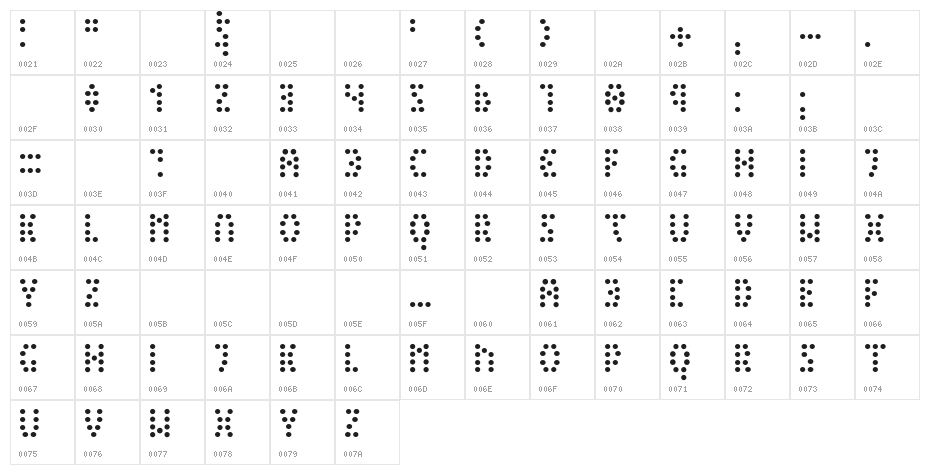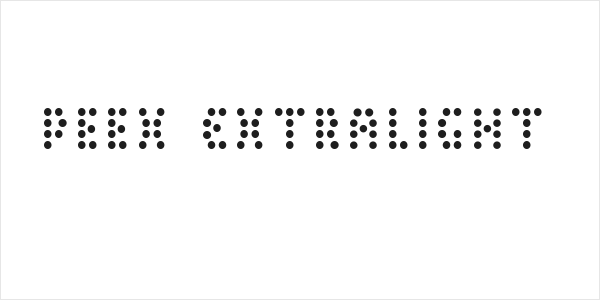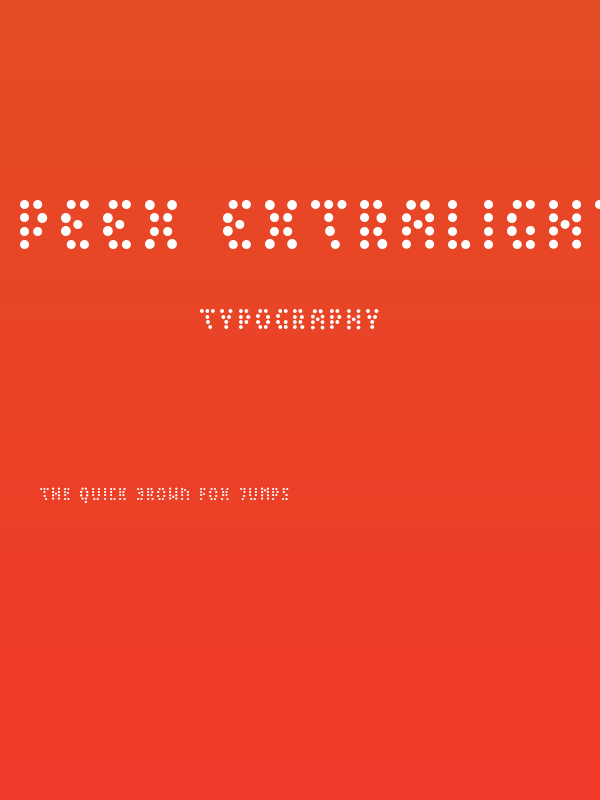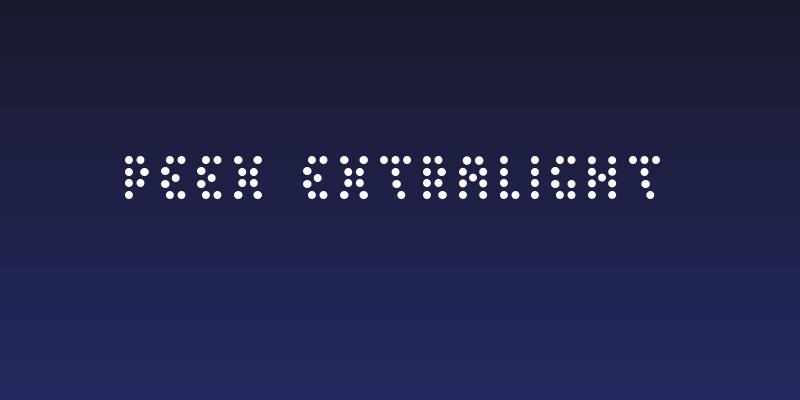
Peex ExtraLight Font
Peex ExtraLight Description
This font is a unique and creative design composed entirely of dots, forming each character with a playful and modern aesthetic. The characters are evenly spaced, with each letter and number crafted from a grid of dots, giving it a pixelated yet smooth appearance. This style is reminiscent of digital displays or LED signage, offering a futuristic and tech-savvy vibe. The uniformity in the dot size and spacing ensures readability while maintaining a distinct visual appeal. The font is versatile, suitable for both digital and print media, and can be used to add a touch of modernity and innovation to any project.
Use CaseHeadlines, Logos, Digital displays
Proposed ProjectsIdeal for digital displays, tech-themed posters, modern branding, and innovative product packaging.